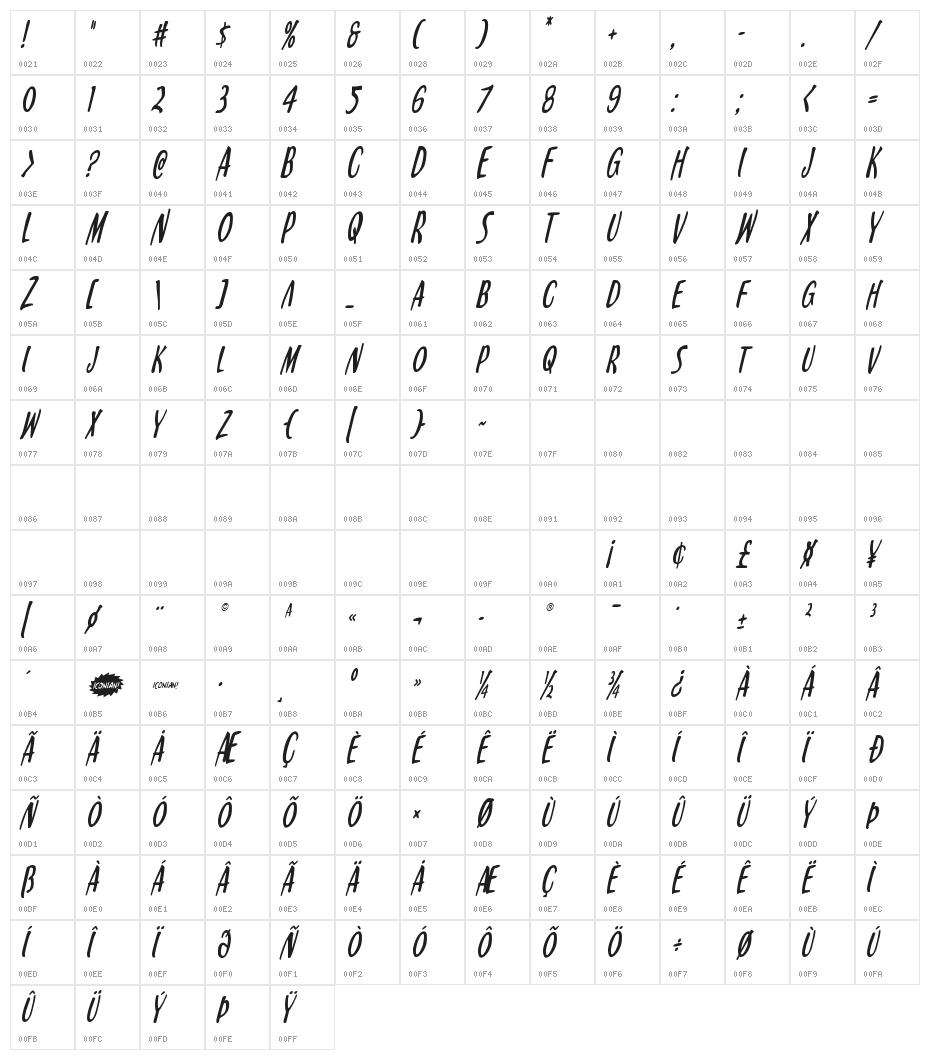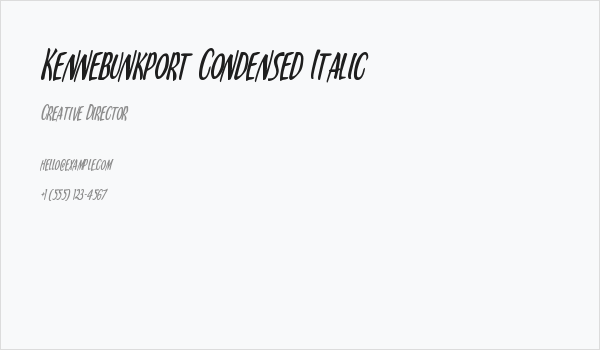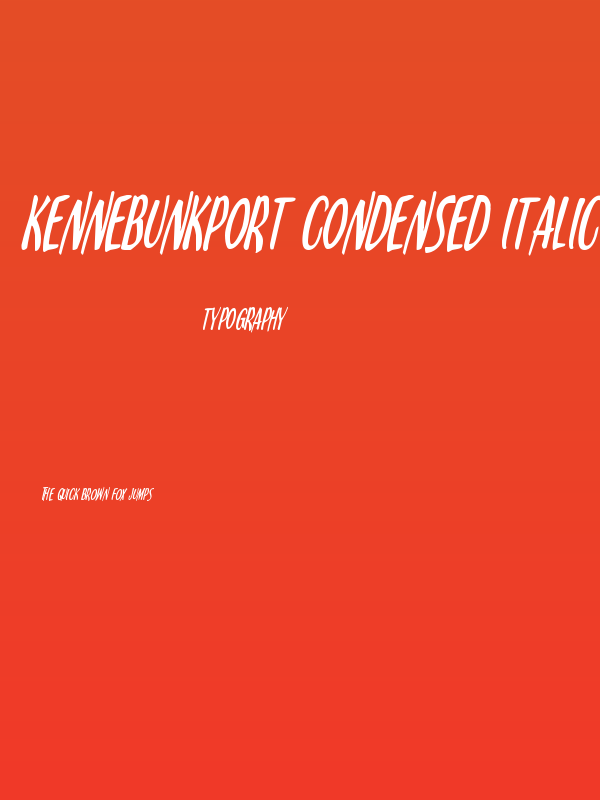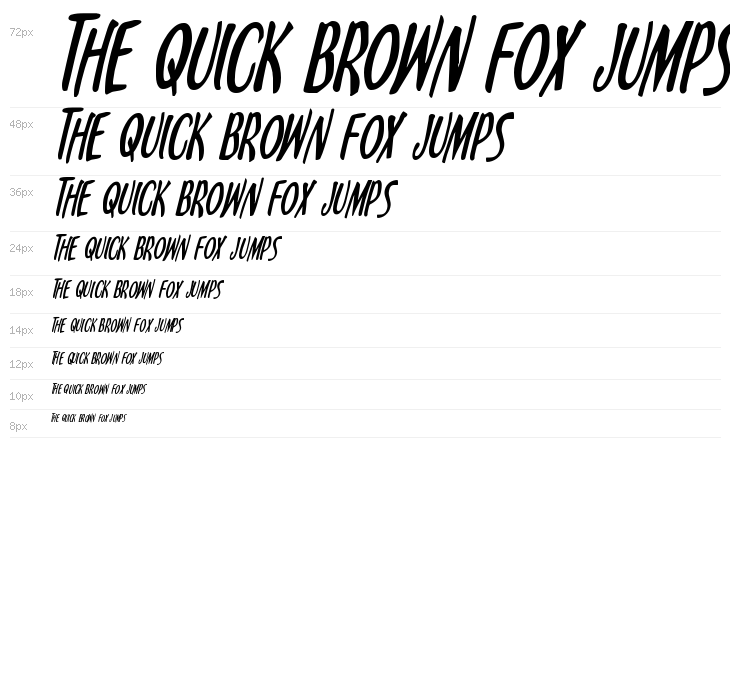
Kennebunkport Condensed Italic Font
Kennebunkport Condensed Italic Description
This font features a dynamic and energetic style with a condensed and italicized form. The characters are elongated and slightly slanted, giving a sense of movement and fluidity. The strokes are bold and consistent, with a smooth flow that enhances readability. The uppercase and lowercase letters maintain a cohesive look, while the numerals and special characters complement the overall design. This font exudes a modern and stylish vibe, making it suitable for various creative applications.
Proposed ProjectsIdeal for branding, posters, headlines, and any design requiring a bold, modern touch.